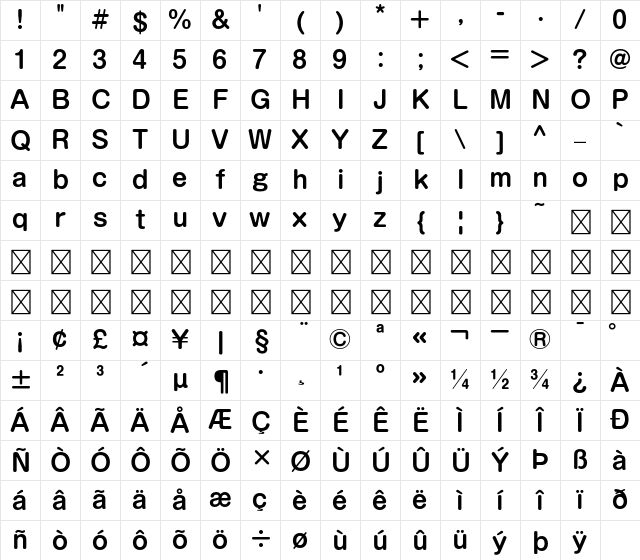
A-OTF Shin Maru Go Pro DB
Style: DB
Design Context for A-OTF Shin Maru Go Pro
A-OTF Shin Maru Go Pro is a composed and adaptable typeface that performs quietly and consistently across a wide range of design contexts.